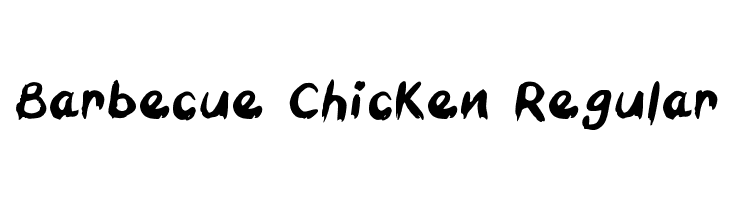
barbecue chicken
Unleash Your Creativity with Barbecue Chicken Font
Barbecue Chicken Font, crafted by John Smith in 2023, embodies a whimsical and playful style inspired by joyous culinary experiences. Ideal for food-related projects, this font brings a sense of fun and warmth to your designs, making it perfect for menus, flyers, and casual branding.
Explore the Unique Features of Barbecue Chicken Font
The Creative Journey Behind Barbecue Chicken Font
Inspired by the joy of outdoor barbecues and festive gatherings, John Smith designed Barbecue Chicken Font with a focus on fun and approachability. Each character delivers a cheerful essence, making it an ideal choice for family-oriented projects or culinary branding.
Best Use Cases for Barbecue Chicken Font
Barbecue Chicken Font excels in casual settings such as food trucks, restaurant branding, or summer event promotions. Its playful nature appeals to audiences looking for a friendly and inviting touch in designs.